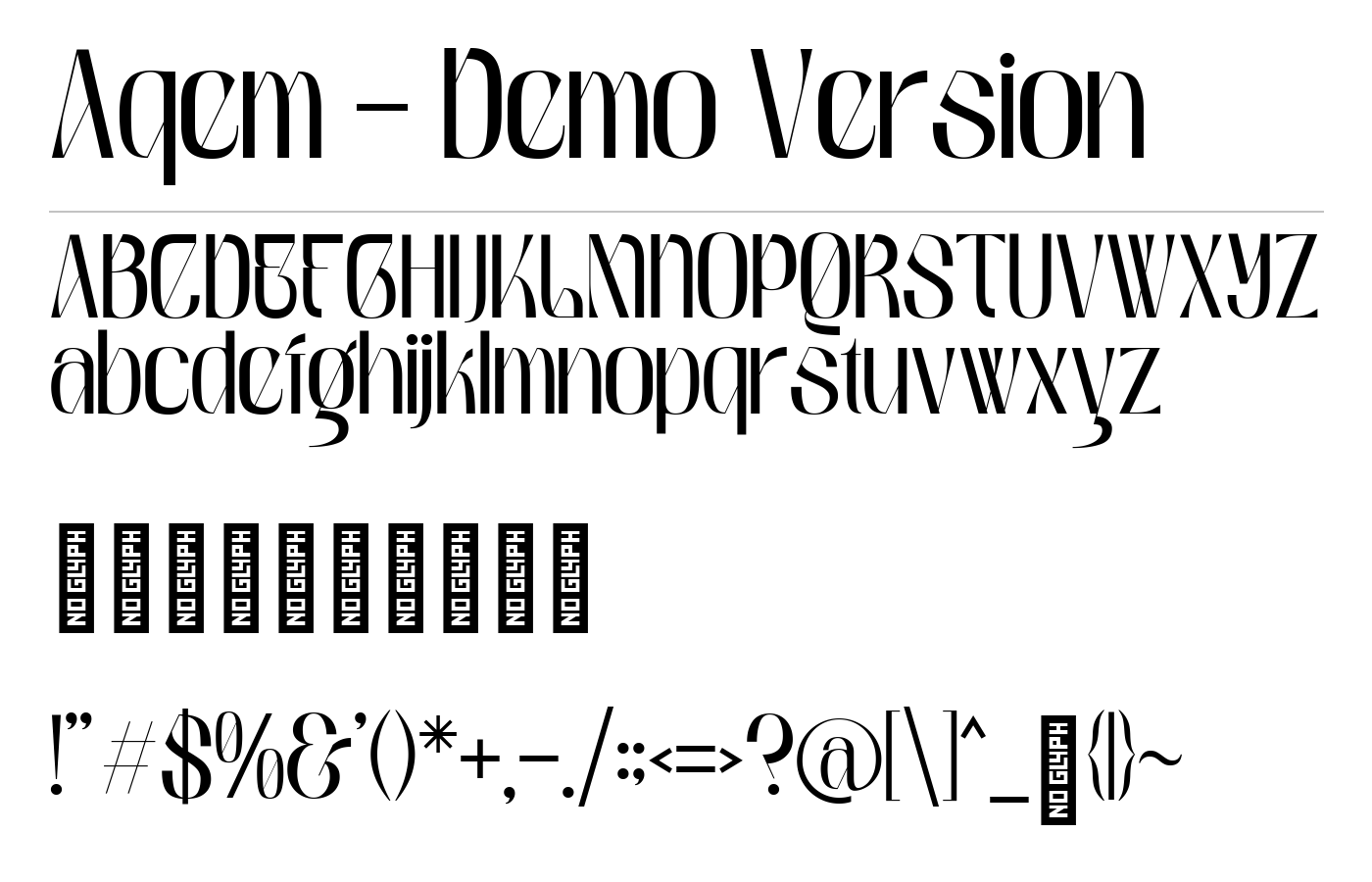
Aqem is a striking serif font that combines modern elegance with artistic flair. Its tall, narrow letterforms feature sharp contrasts between thick and thin strokes, along with unique, stylized shapes that give it a sophisticated yet playful character, making it ideal for fashion branding, editorial headlines, and creative logos where a distinctive, high-end look is desired.
Aqem - Demo Version Font
About Aqem - Demo Version Font